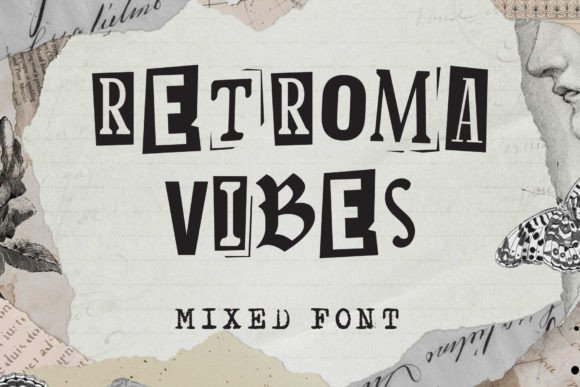
Retroma Vibes is a mixed font inspired by retro collage art and clipping of old newspapers. Feel the old school taste with this block font mixed with sans serif, condensed serif, blackletter, handwriting, and old typewriter style, combined into a chaotic collage style.
You can also mix and match the letter by using the alternated characters or switching with the lowercase which gives you a more attractive design.